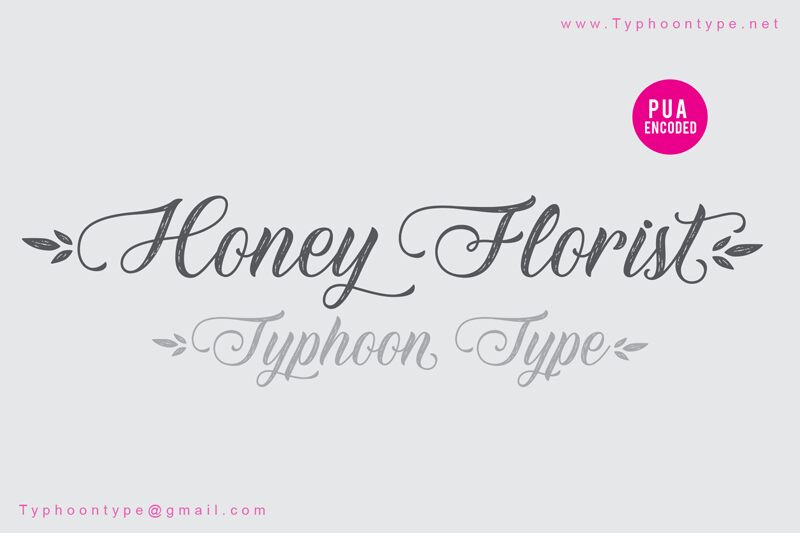
Honey Florist font is a must-have calligraphy typeface designed by Typhoon Type - Suthi Srisopha.
Type (before a word to get beginning Splash and Type ) after word to get the ending Splash.
Example : (Honey Florist)